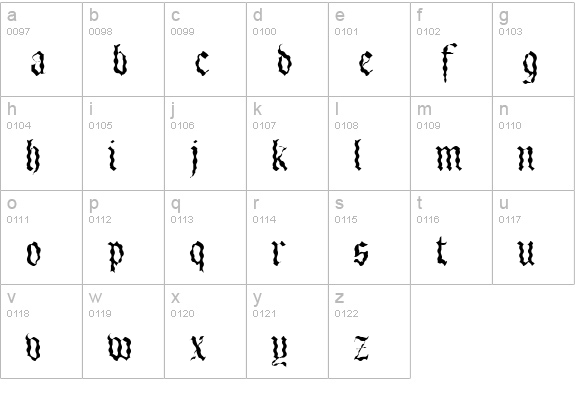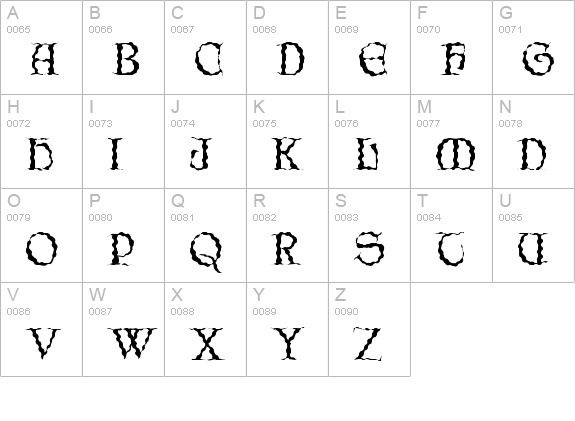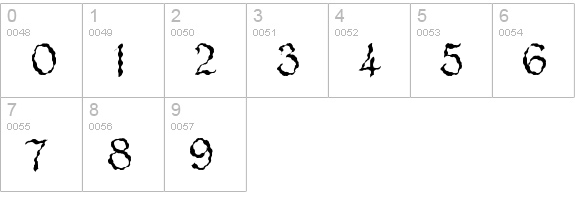
LettergicalWave Font Details
Introducing LettergicalWave, a mesmerizing and captivating font that will take your designs to the next level. With its unique and intricate wave-like patterns, this font is sure to make a lasting impression on any project. LettergicalWave effortlessly combines elegance with a touch of playfulness, making it the ideal choice for a wide range of creative endeavors. Whether you're designing logos, branding materials, invitations, or anything in between, this font will add a touch of sophistication and flair to your work. What sets LettergicalWave apart is not only its stunning visual appeal but also its versatility. With multiple variations and alternate characters, you can customize and personalize your designs to suit your specific needs. The possibilities are endless with this font, allowing you to create truly unique and memorable pieces. And the best part? LettergicalWave is available for free download exclusively at FontsMarket.com. We believe in making high-quality fonts accessible to everyone, and that's why we're thrilled to offer this extraordinary font at no cost. Now you can elevate your designs without breaking the bank. So, whether you're a professional designer, a hobbyist, or simply someone looking to add a touch of creativity to your projects, don't miss out on the opportunity to enhance your work with LettergicalWave. Download this remarkable font for free at FontsMarket.com and let your imagination run wild.